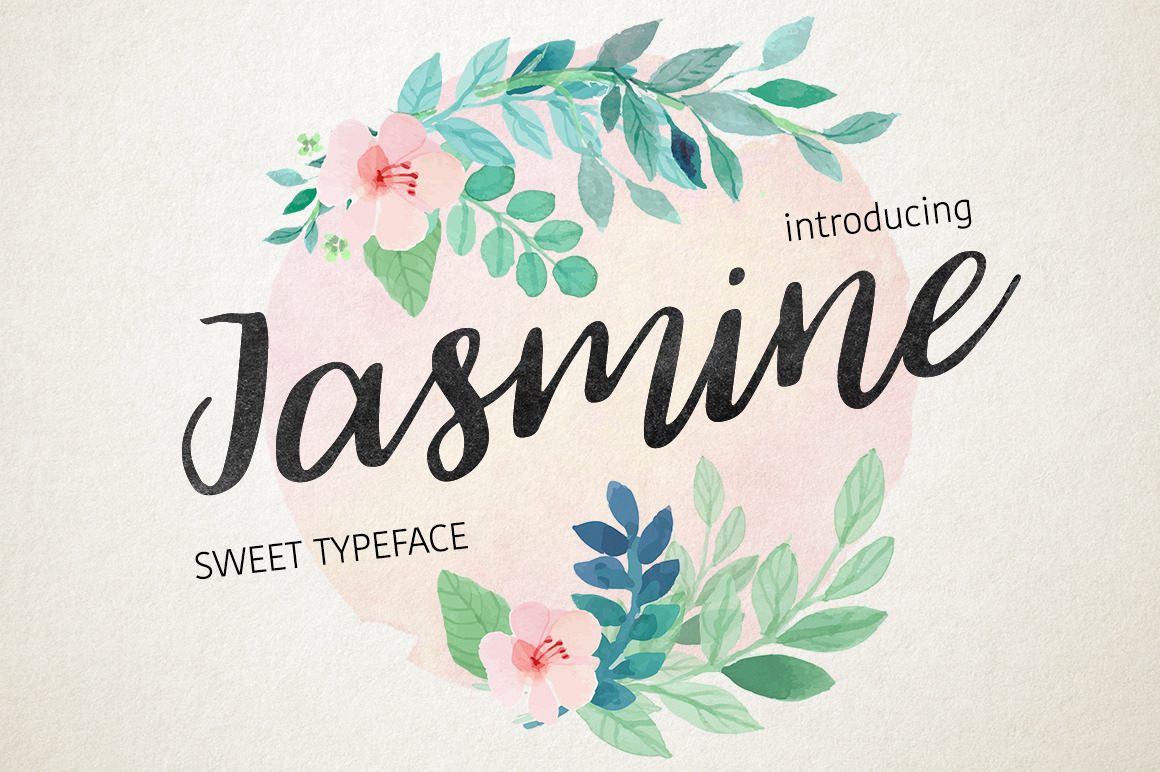
Jasmine handwriting font
Jasmine - a new fabulously fun yet elegant handlettered script font, allowing you to create beautiful hand-made typography, greeting cards, branding materials, business cards, quotes, posters, and more!